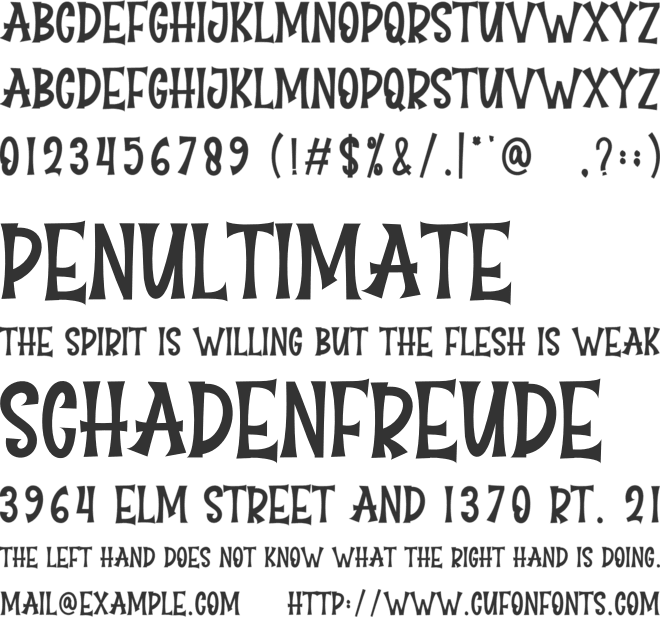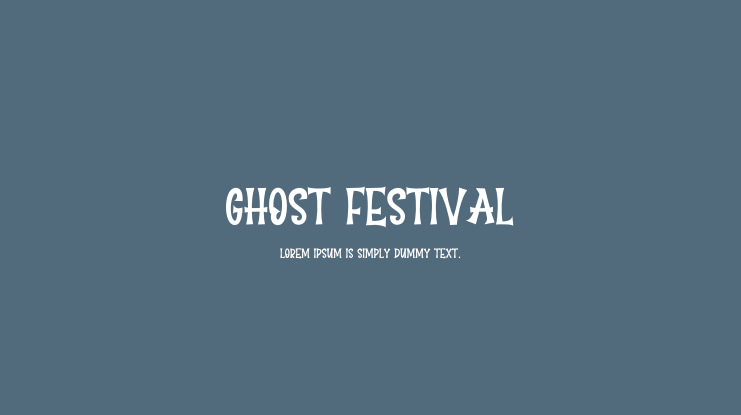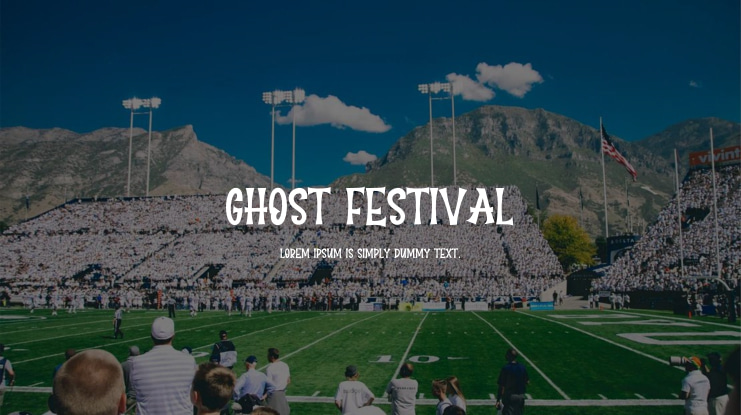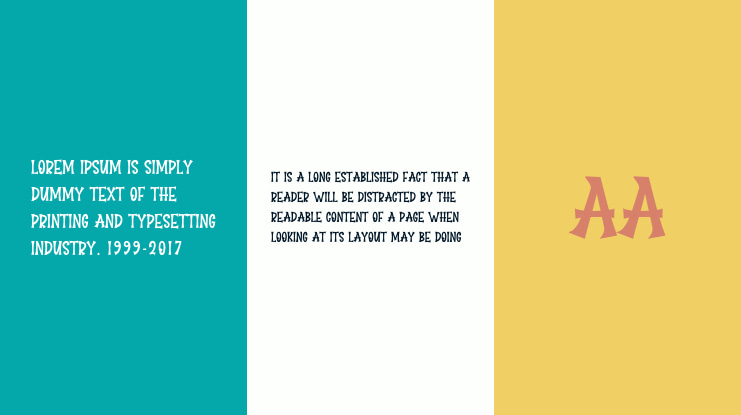
Our latest styled letters are ideal for various applications such as wall displays, wedding invitations, social media logos, advertisements, product packaging, product designs, labels, photography, watermarks, invitations, stationery, and any project that requires elegant handwriting.